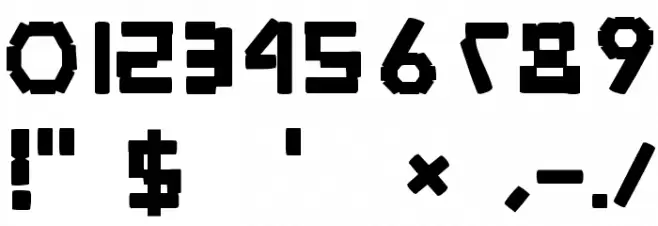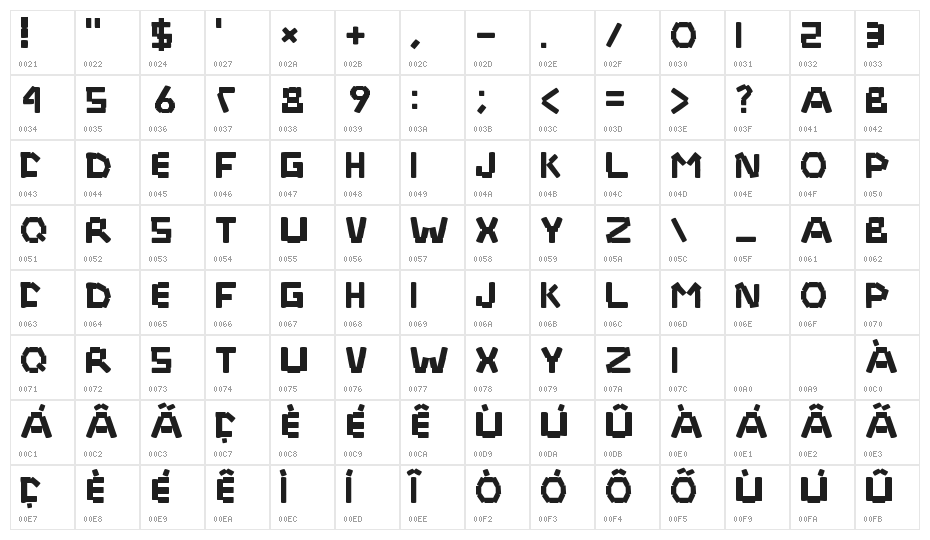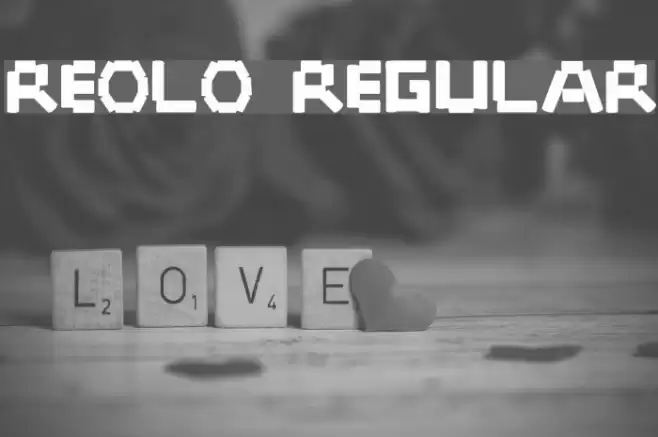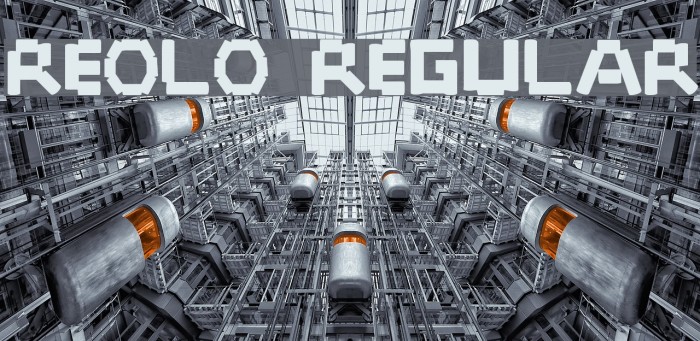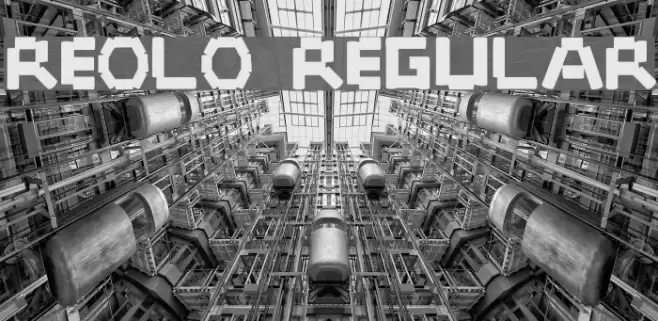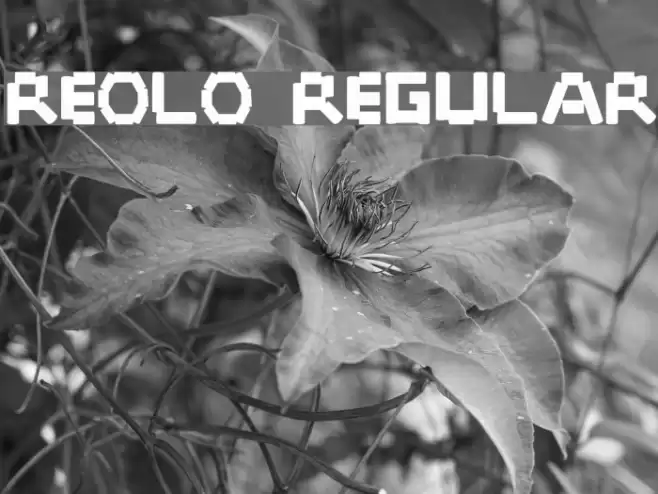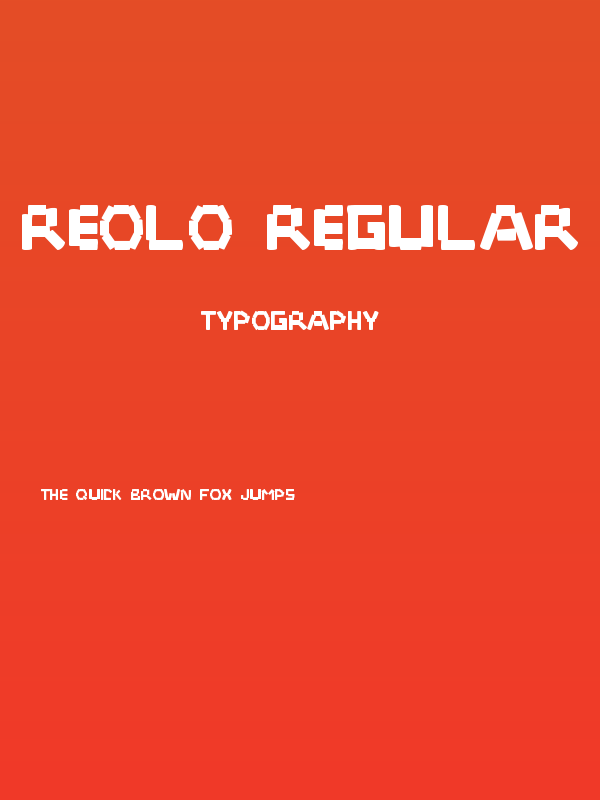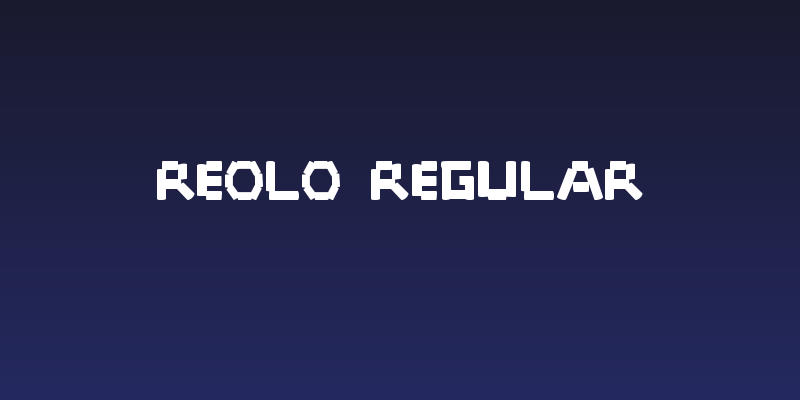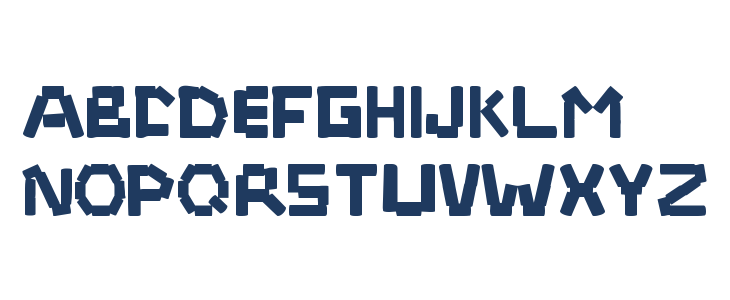
Reolo Regular Font
Reolo Regular Description
This font features a bold, geometric design with a distinct blocky appearance. Each character is constructed with sharp angles and straight lines, creating a futuristic and industrial feel. The uppercase and lowercase letters maintain a consistent style, with the uppercase being slightly larger and more prominent. Numbers and special characters follow the same design principles, ensuring uniformity across all elements. The font's unique style makes it stand out, ideal for projects that require a modern and edgy look.
| Proposed Projects | Ideal for branding, posters, video game graphics, and any project needing a modern, edgy aesthetic. |